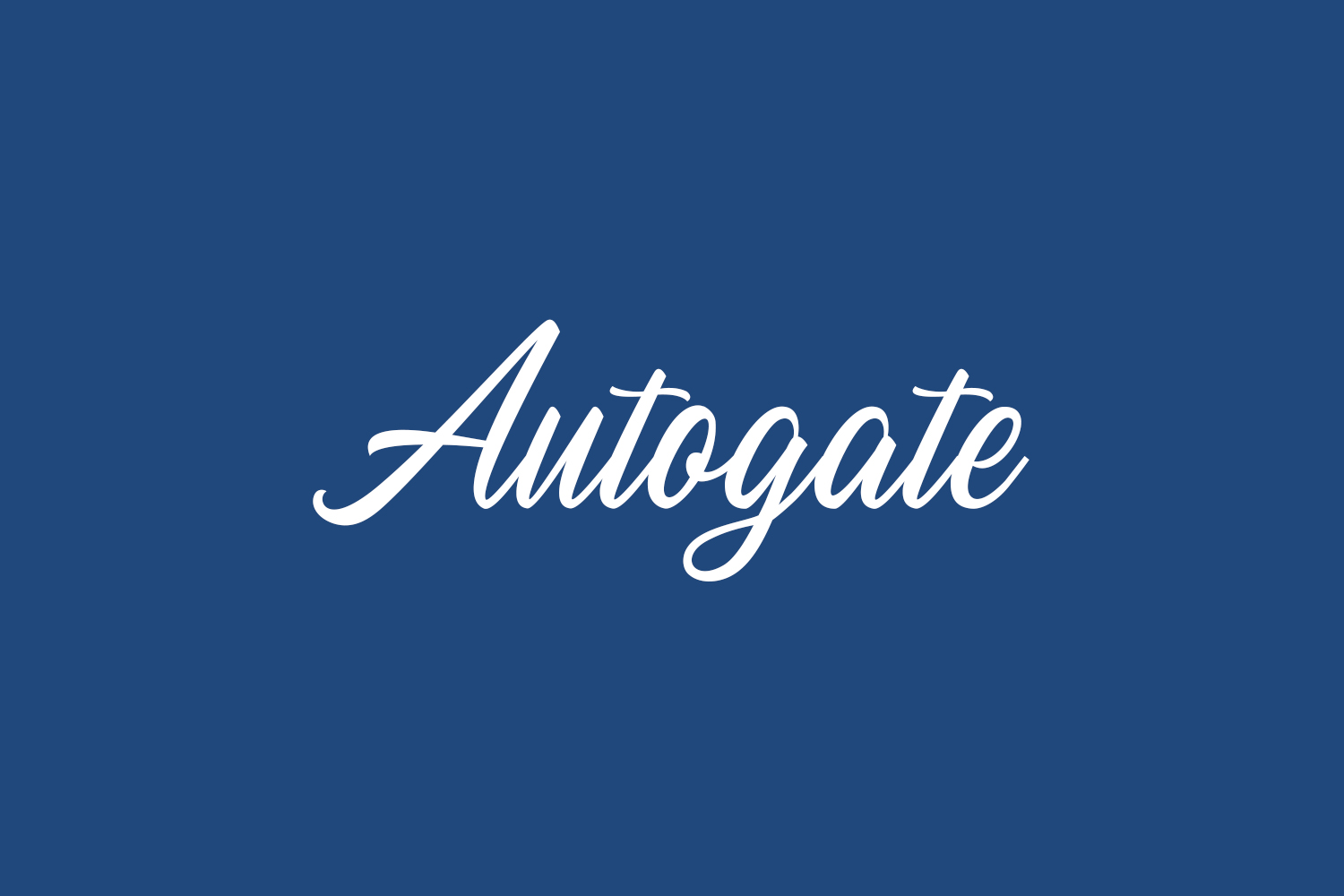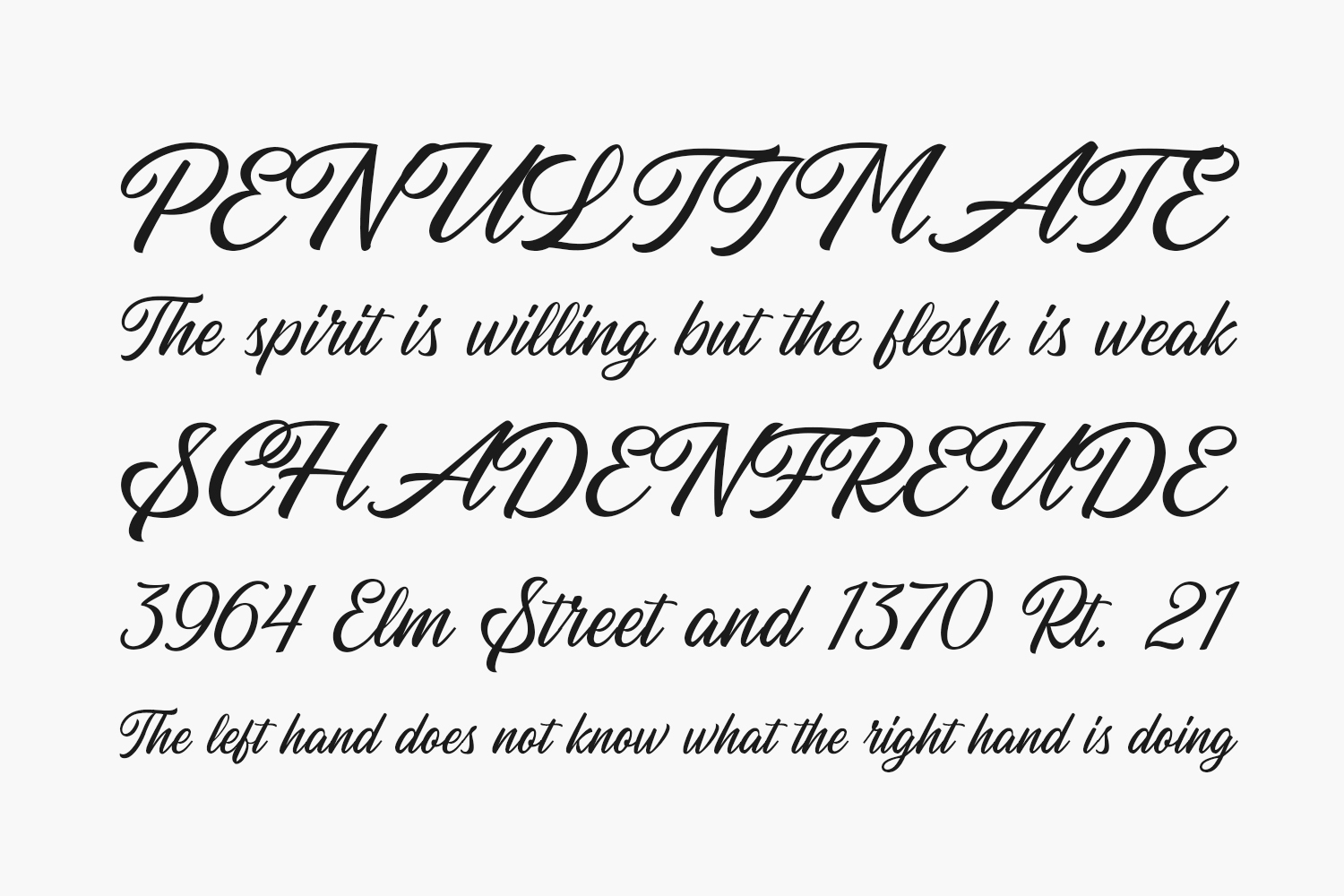
Autogate Free Font is a fun font duo. It’s a pair of script and sans font that can be combined perfectly. The classic feel is perfect logotype, apparel, invitations, branding, packaging, advertising, and more. Autogate Free Font was designed by Letterhend Studio and is free for personal use only. Please purchase the full version for commercial use.
Designed by Letterhend Studio